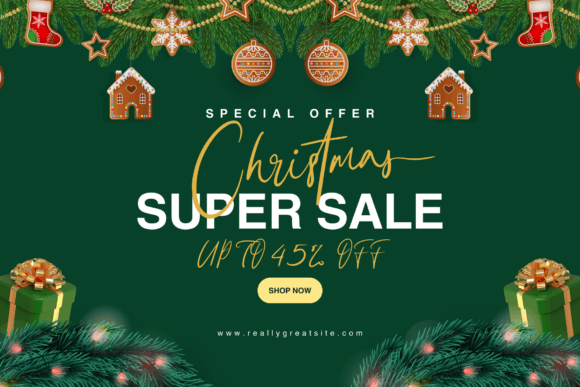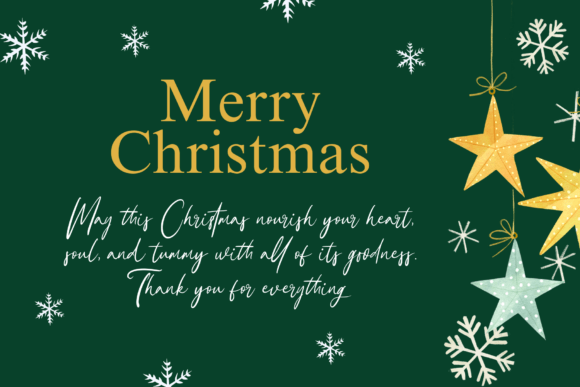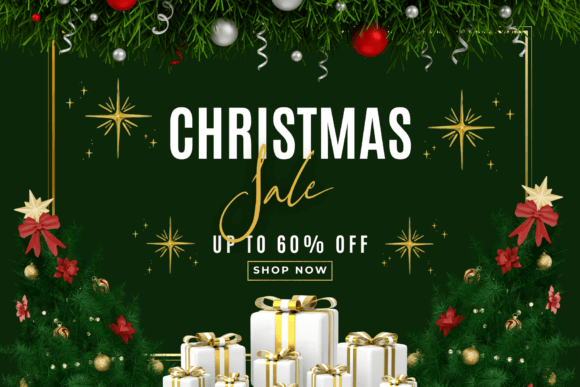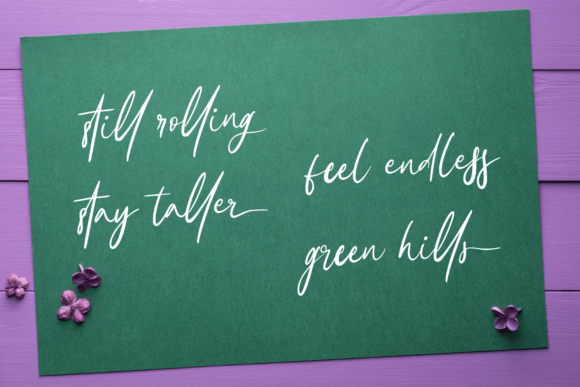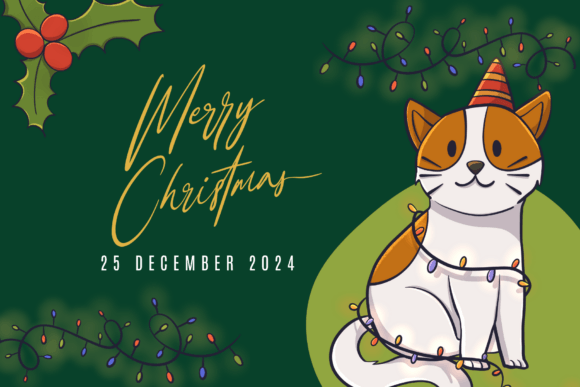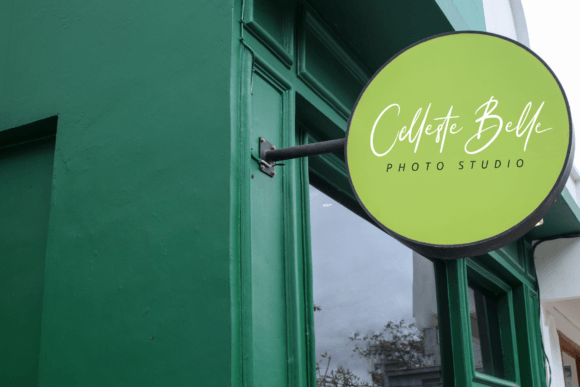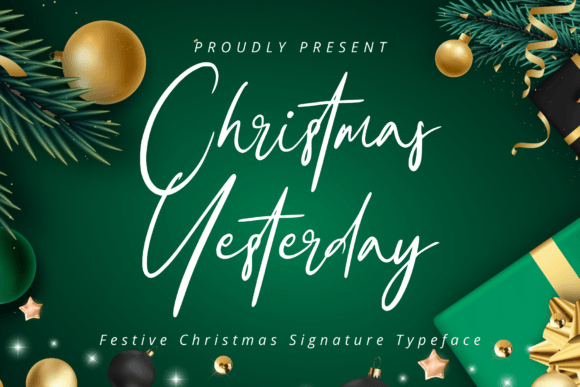
Introducing Christmas Yesterday Font: The Ultimate Holiday Design Companion
Are you looking for a font that can add a touch of magic to your Christmas and New Year’s design projects? Look no further than Christmas Yesterday, a stunning script font that boasts a unique flair and a warm, inviting ambiance. In this article, we’ll explore the captivating allure of Christmas Yesterday and how it can elevate your event designs to new heights.
The Charm of Hand-Scribed Typography
Christmas Yesterday is a meticulously created, hand-scribed typography that exudes a tangible authenticity. Its unique, flowing script is reminiscent of traditional holiday cards and decorations, evoking a sense of nostalgia and warmth. This font is the perfect choice for designers and crafters who want to infuse their projects with a personal, artisanal touch.
Elegance and Ease: The Perfect Combination
Christmas Yesterday is synonymous with elegance and ease. Its smooth, flowing lines make it easy to read and work with, while its sophisticated style adds a touch of luxury to any design. Whether you’re creating holiday cards, invitations, or social media graphics, this font is sure to impress.
Seasonal Creativity and Beyond
While Christmas Yesterday is ideally suited to Christmas and New Year’s design projects, its versatility extends far beyond the holiday season. This font can seamlessly intensify any assignment, injecting undeniable warmth and playful charm into your artistic endeavors. Use it to create:
- Seasonal social media graphics and posts
- Winter-themed party decorations and flyers
- New Year’s Eve countdowns and celebrations
Why Choose Christmas Yesterday Font?
So, why choose Christmas Yesterday font for your holiday design projects? Here are just a few compelling reasons:
- Unique and eye-catching: Christmas Yesterday boasts a distinctive, hand-scribed style that sets it apart from more traditional fonts.
- Easy to use: This font is incredibly easy to read and work with, making it perfect for designers and crafters of all skill levels.
- Versatile: Christmas Yesterday can be used for a wide range of design projects, from holiday cards to social media graphics.
- Authentic and nostalgic: This font’s hand-scribed style evokes a sense of nostalgia and warmth, perfect for creating holiday designs that feel personal and authentic.
Tips for Using Christmas Yesterday Font
Here are a few tips for getting the most out of Christmas Yesterday font:
- Pair it with complementary fonts: Combine Christmas Yesterday with other fonts to create a unique and visually appealing design.
- Experiment with colors and textures: Add depth and interest to your design with festive colors and textures.
- Use it for headlines and titles: Christmas Yesterday is perfect for headlines and titles, where its elegant script can really shine.
Christmas Yesterday font is a game-changer for designers and crafters looking to add a touch of magic to their holiday design projects. With its unique, hand-scribed style and warm, inviting ambiance, this font is sure to become a go-to choice for anyone looking to create stunning holiday designs. So why wait? Download Christmas Yesterday font today and start imbuing your event designs with the captivating allure of the holiday season!